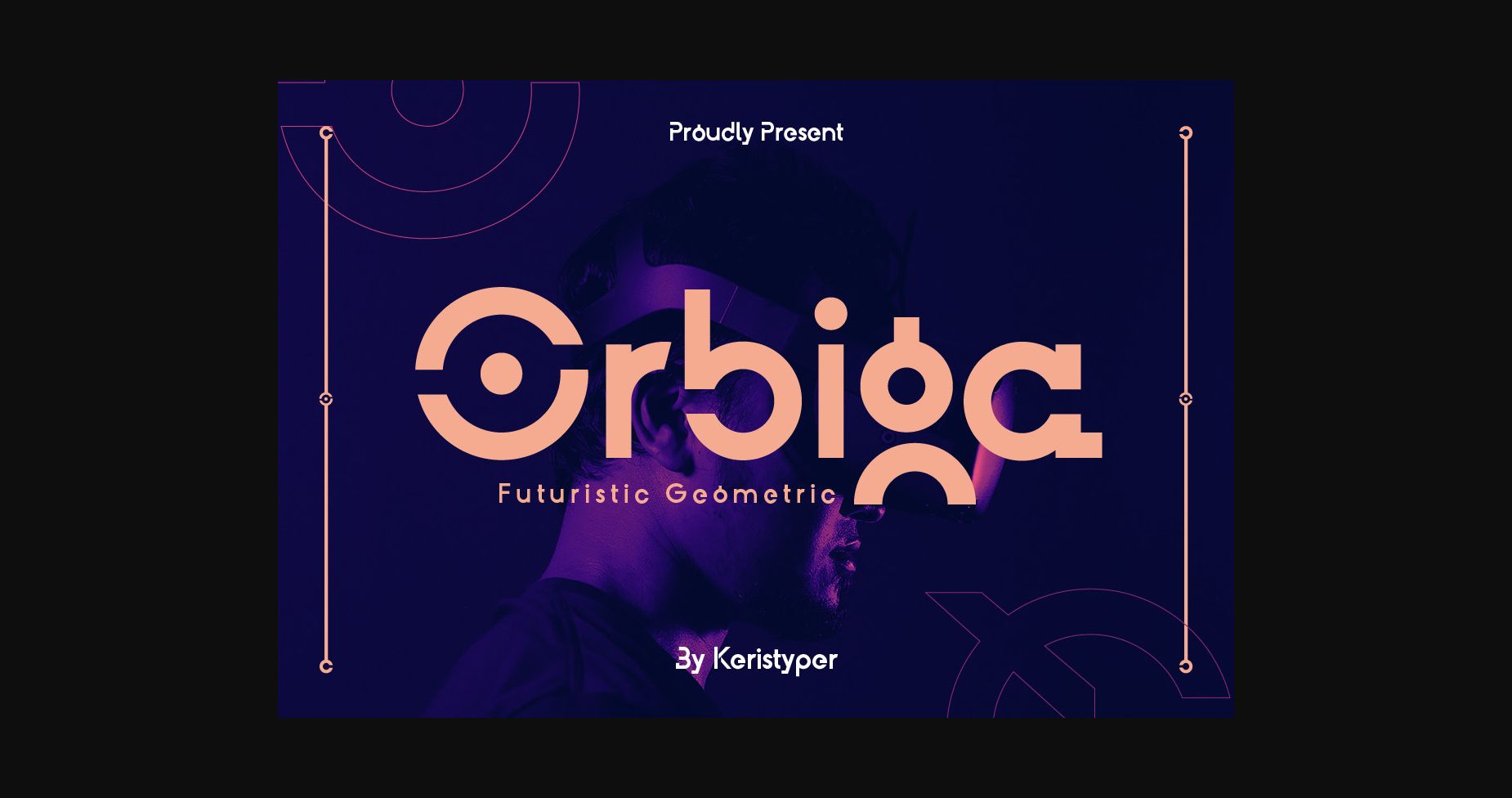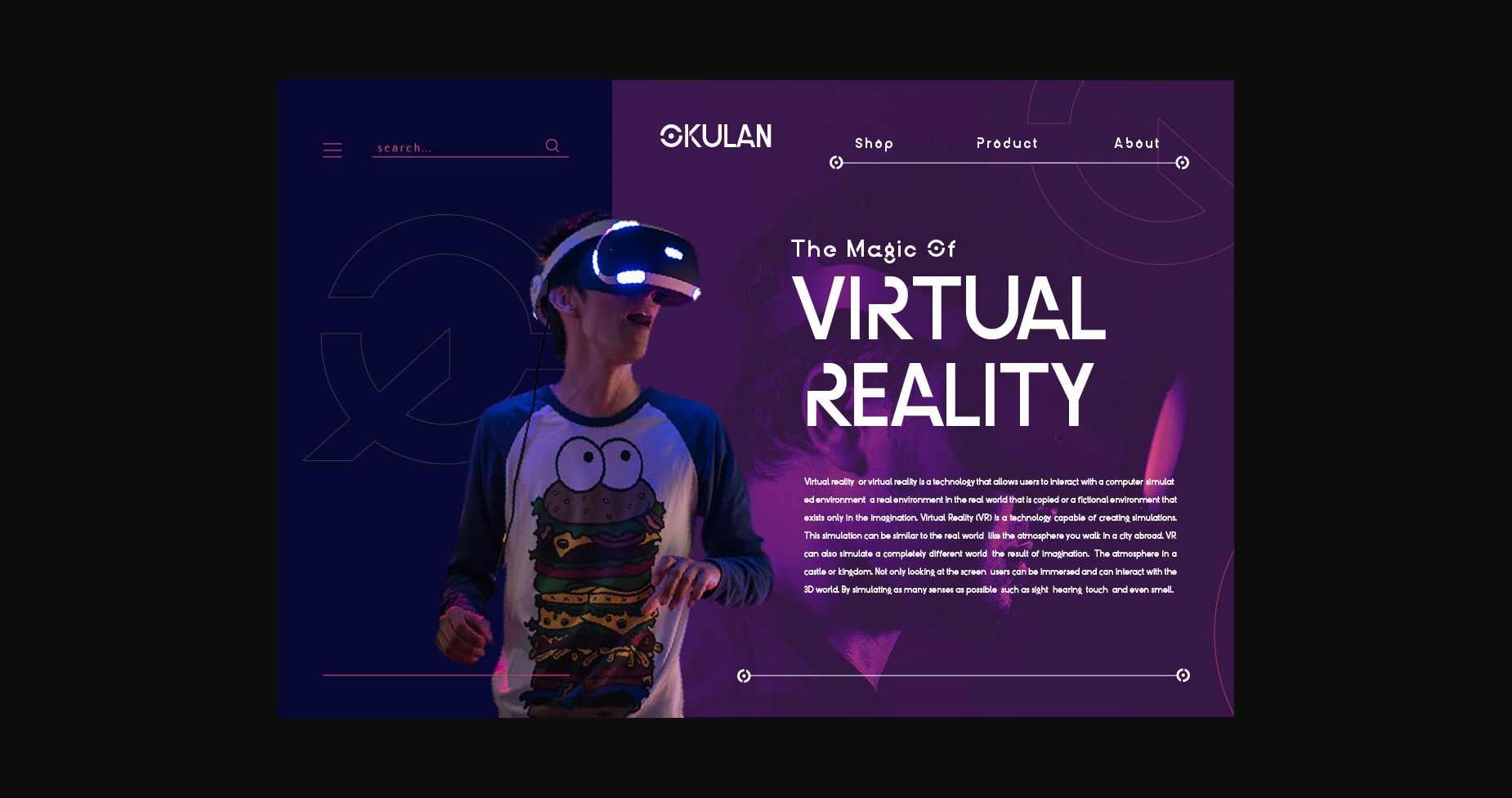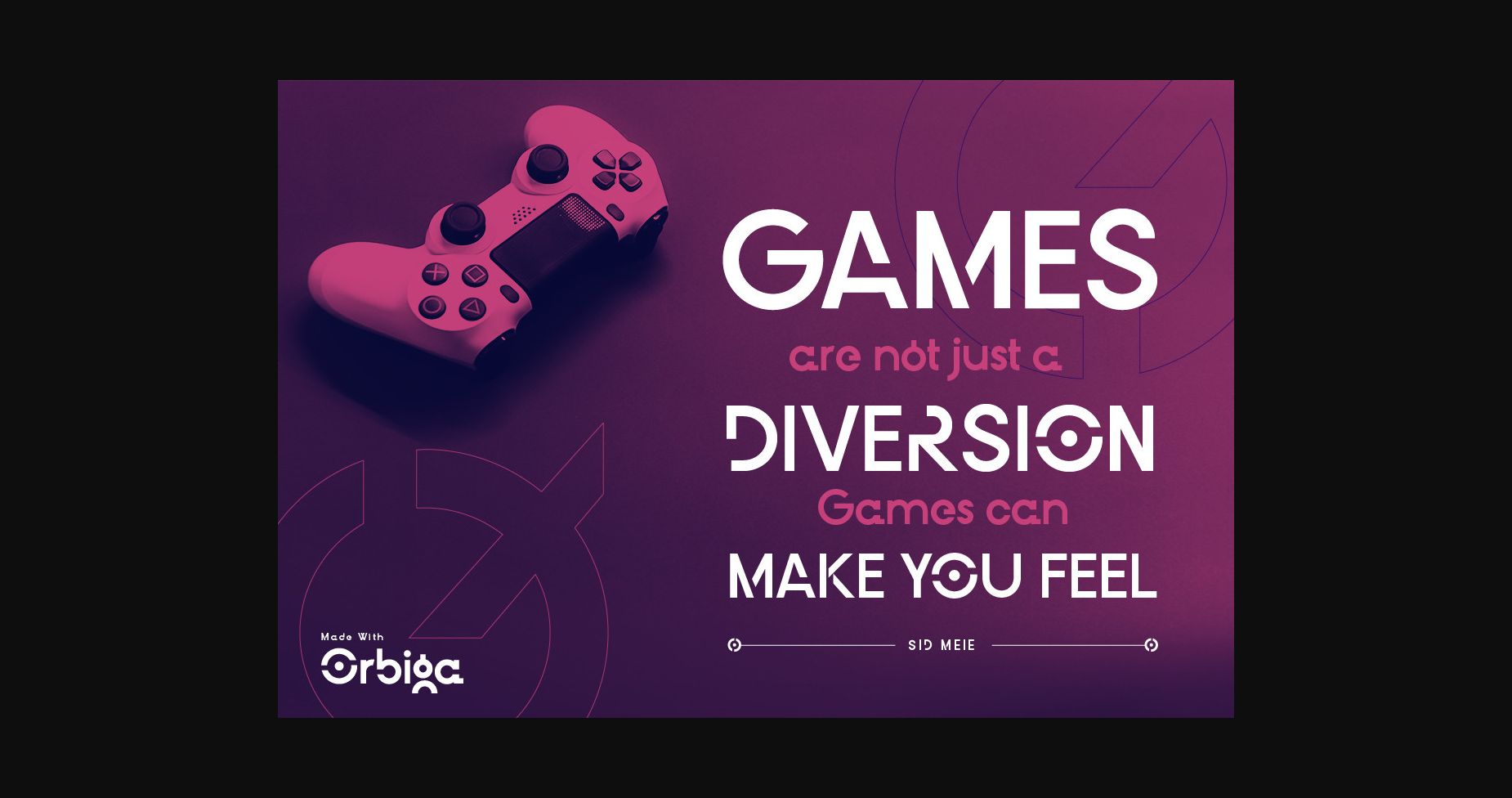
About Orbiga Font
Orbiga is a modern minimalist futuristic sans serif font with a futuristic edge, and geometric corners, perfect for technology, digital, and modern futuristic themes. This font is good for logo design, Social media, Movie Titles, Books Titles, short text even long text letters, and good for your secondary text font with sans or serif.